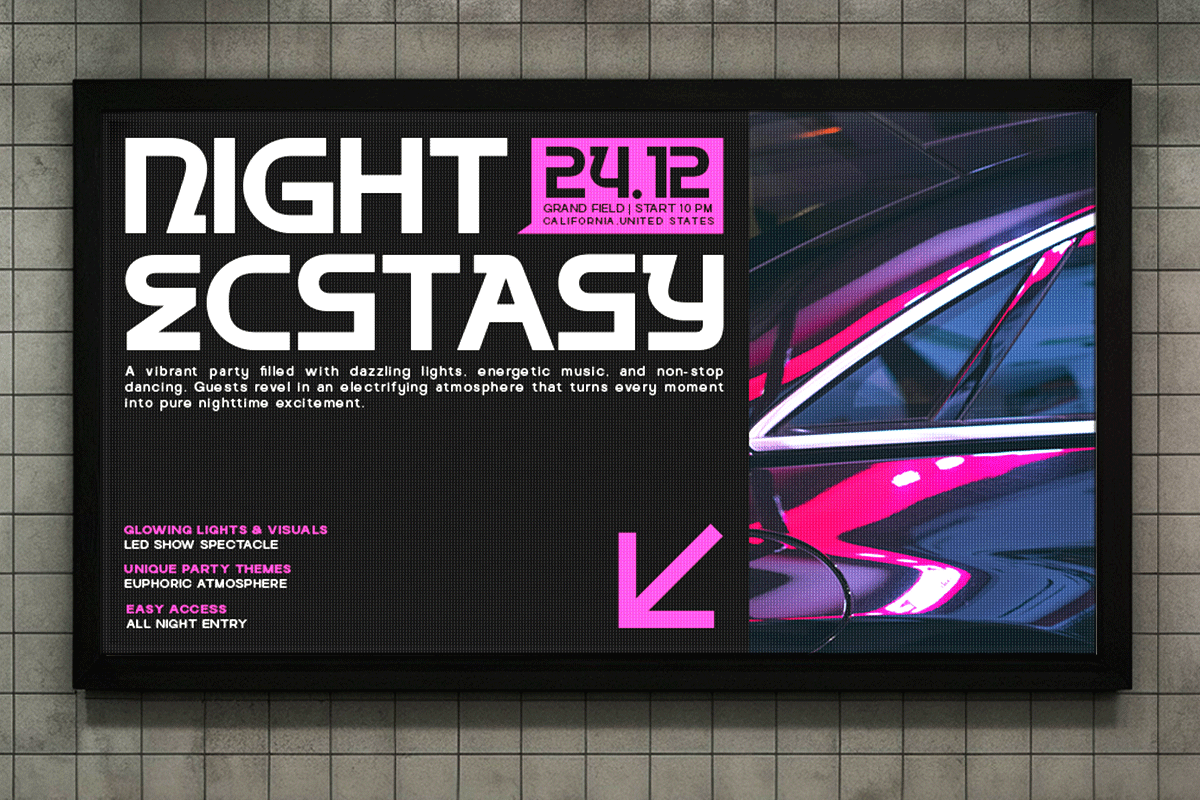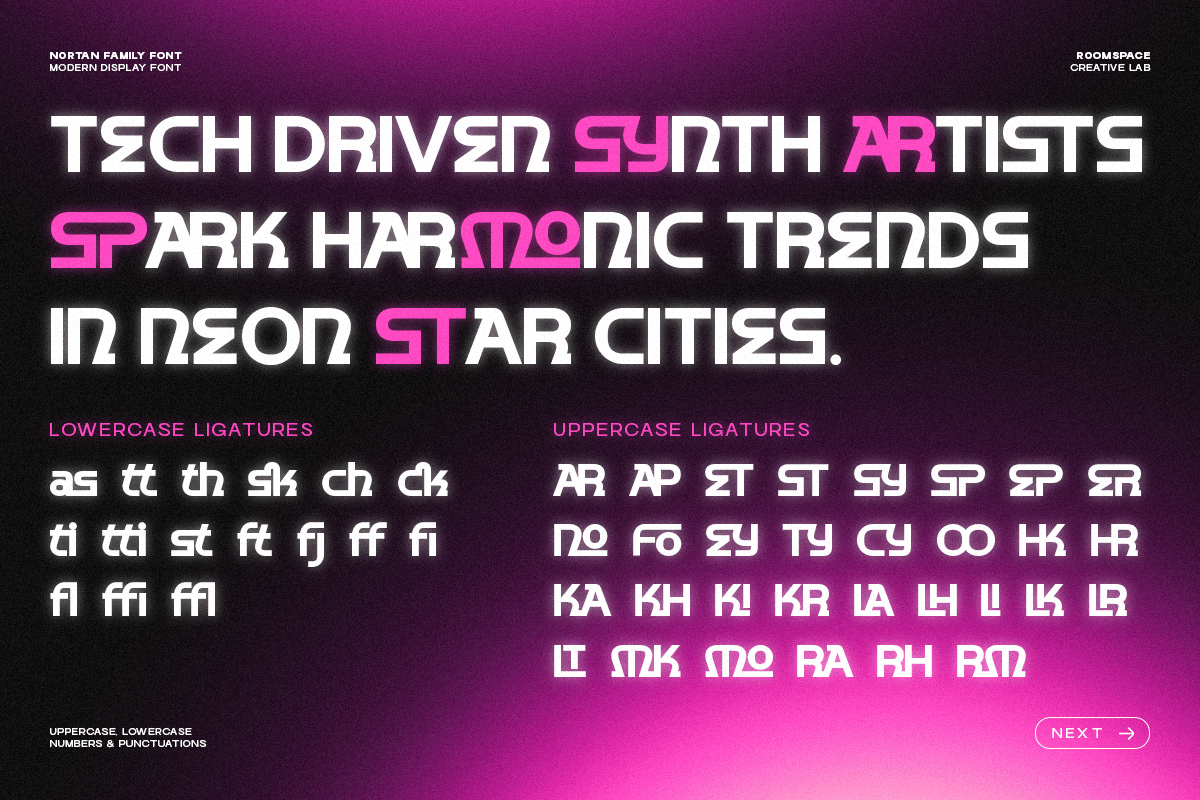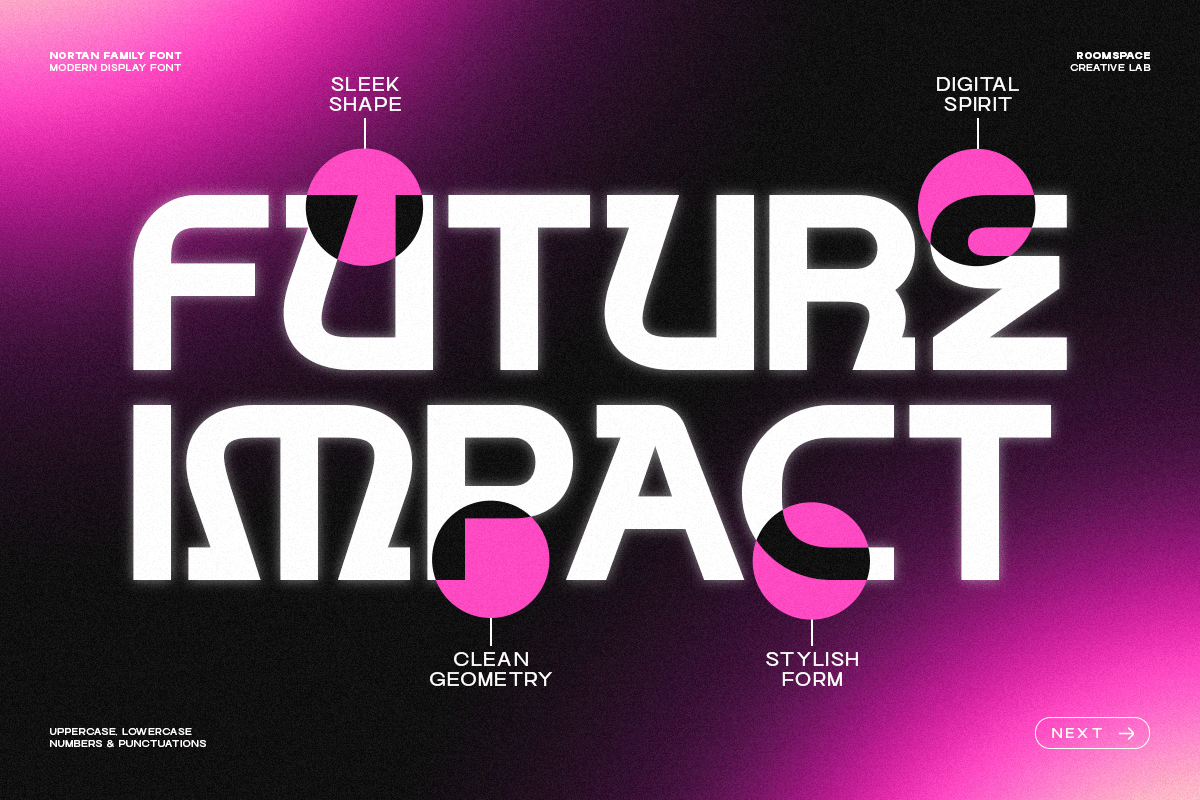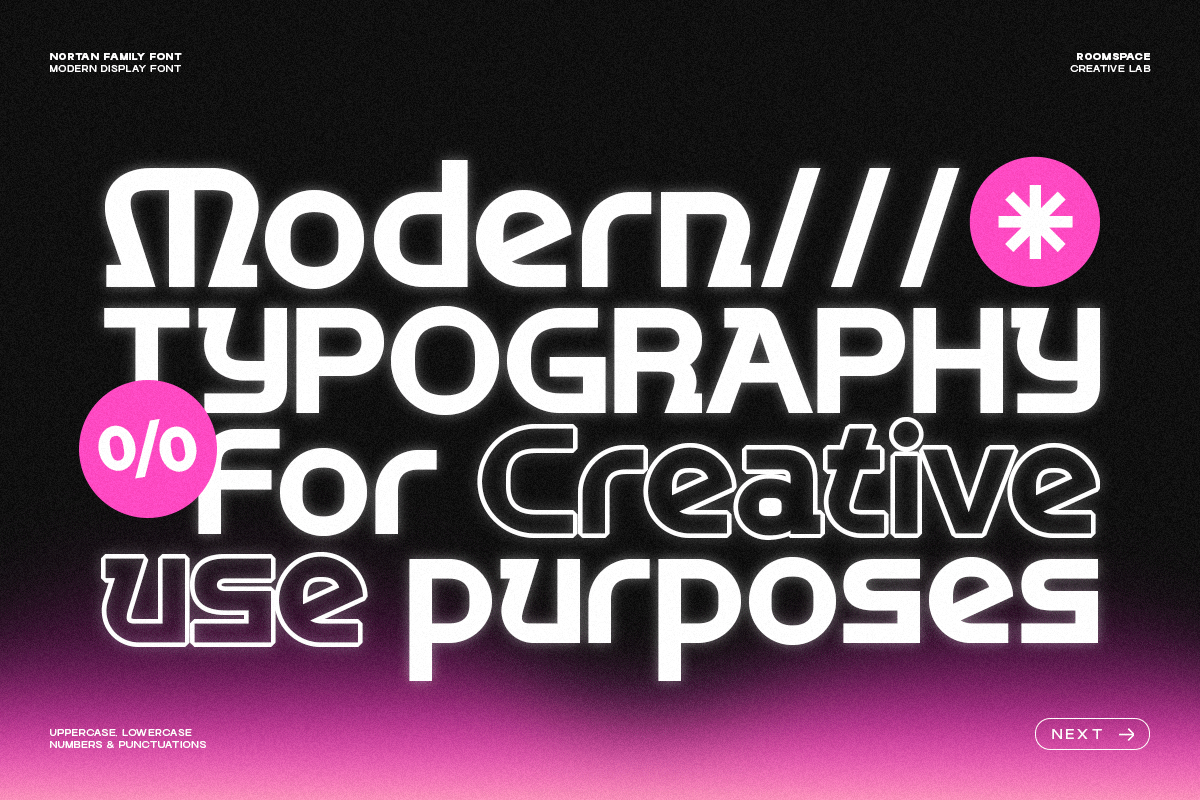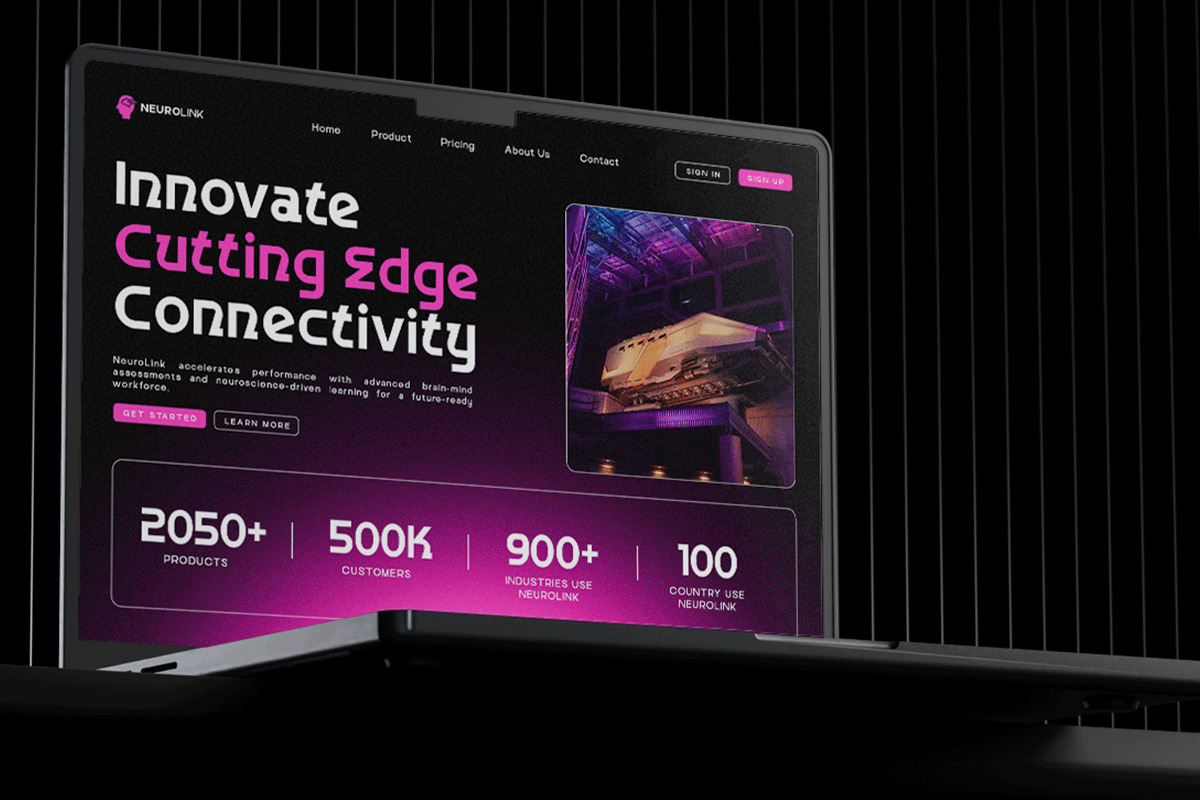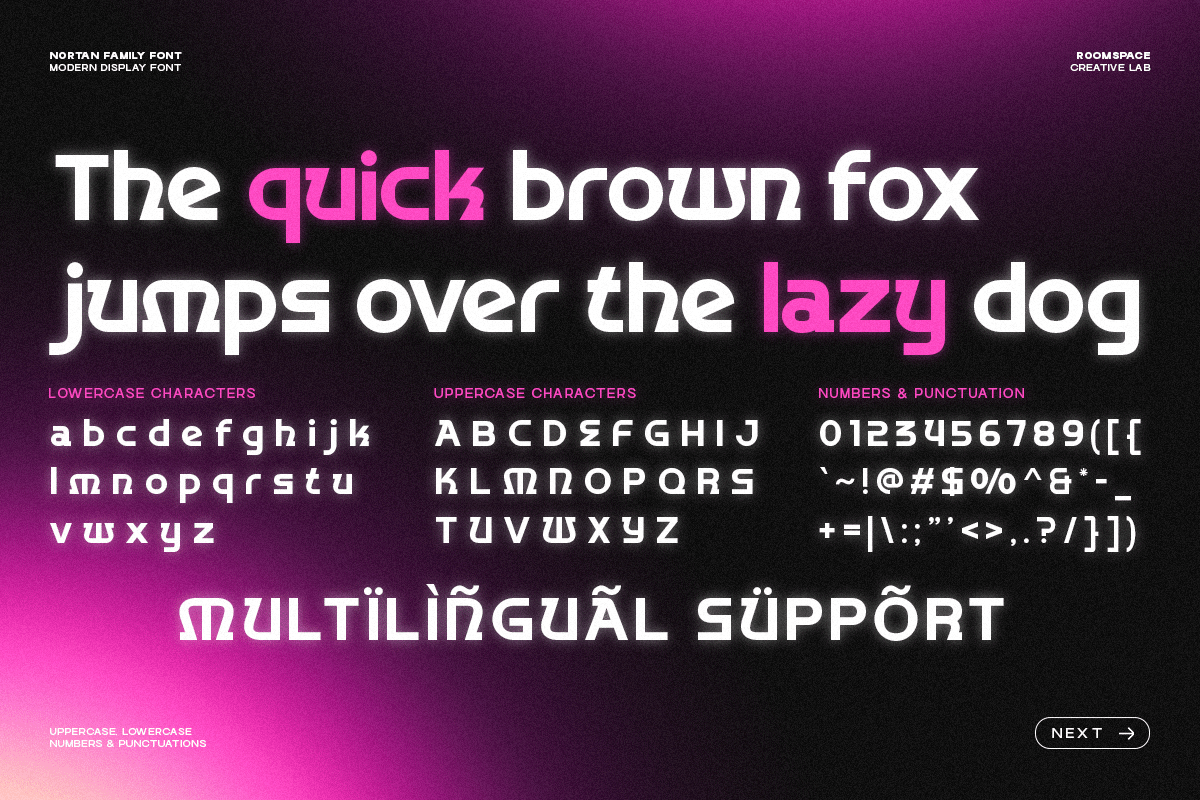
Nortan – A Futuristic Modern Display
Futuristic, modern, structured, and progressive. Nortan projects a high-tech personality with sleek geometry and cinematic sharpness. It speaks innovation: digital-forward, forward-moving, and ultra-contemporary. Nortan is a futuristic display sans-serif designed to elevate modern branding with its clean geometry and tech-inspired personality. Its unique shapes and sleek proportions make it ideal for digital design, gaming interfaces, startup branding, app visuals, and editorial layouts seeking a cutting-edge aesthetic. Built for designers who want clarity, innovation, and forward-thinking visual presence.
- Futuristic display design
- Strong geometric structure
- Ligatures + multilingual characters
Perfect For : Tech branding, gaming UI, posters, product packaging, digital interfaces, startup identity systems, and sci-fi visuals.